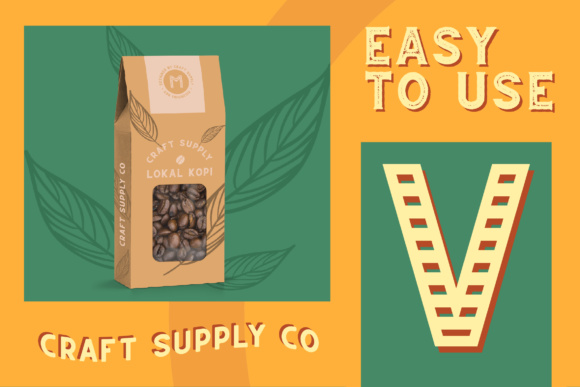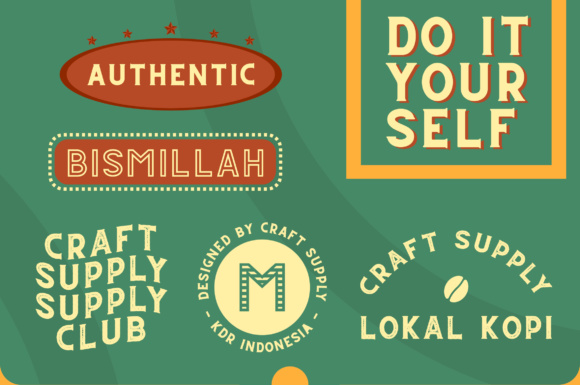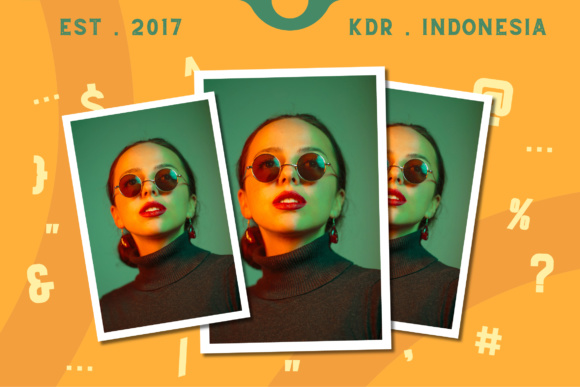
Introduction to Gordon Font
Have you ever stumbled upon a vintage sign while on a road trip, and instantly felt inspired to capture its essence in your next design project? For many designers, this is a moment of creative spark that sets their imagination ablaze. The Gordon Font is a stunning family of fonts that draws inspiration from these retro signs, but with a modern twist that makes it perfect for use in nearly any design.
As a valuable resource for designers, the Gordon Font offers a unique combination of style and versatility. With its 9 distinct styles, this font family is sure to elevate any creative project, from logos to typography-based designs. Plus, with bonus files included, you’ll have everything you need to bring your ideas to life.
Key Features of Gordon Font
- High-quality font suitable for creative projects, including posters, flyers, and brochures.
- Unique characteristics, including a modern aesthetic and clean typography, set it apart from other fonts in its class.
Honest Review: Gordon Font
I recently stumbled upon the Gordon Font and I must say, it’s been a game-changer for my creative projects. As a designer, I’m always on the lookout for high-quality fonts that can elevate my work.
Here are some of the things that work well: ✨
- High-quality design: Gordon Font has a clean and modern design that’s perfect for any creative project.
- Transparent background: This makes it easy to customize and combine with other design elements.
- Large character set: The font includes a wide range of characters, making it suitable for various languages and scripts.
However, there are a few limitations: ⚠️
- Limited font styles: While the font itself is great, the lack of additional font styles may limit its versatility.
- Not suitable for very large text: Due to its design, Gordon Font may not be the best choice for very large text sizes.
Overall, I’m really impressed with Gordon Font and would highly recommend it to fellow designers. It’s a great addition to any design resource collection and can help take your creative projects to the next level.
Gordon Font
The Gordon Font is a high-quality design resource that can elevate your creative project to the next level. With a transparent background, this font is perfect for designers looking to add a touch of sophistication to their work.
Tips for Getting the Most Out of Gordon Font
To get the most out of Gordon Font, be sure to experiment with different font sizes and colors to find the perfect fit for your design. You can also combine Gordon Font with other design elements to create a unique and eye-catching look.
Common Use Cases for Gordon Font
Gordon Font is perfect for a variety of design projects, including business cards, brochures, and websites. Its high-quality design and transparent background make it an ideal choice for designers looking to add a touch of sophistication to their work.